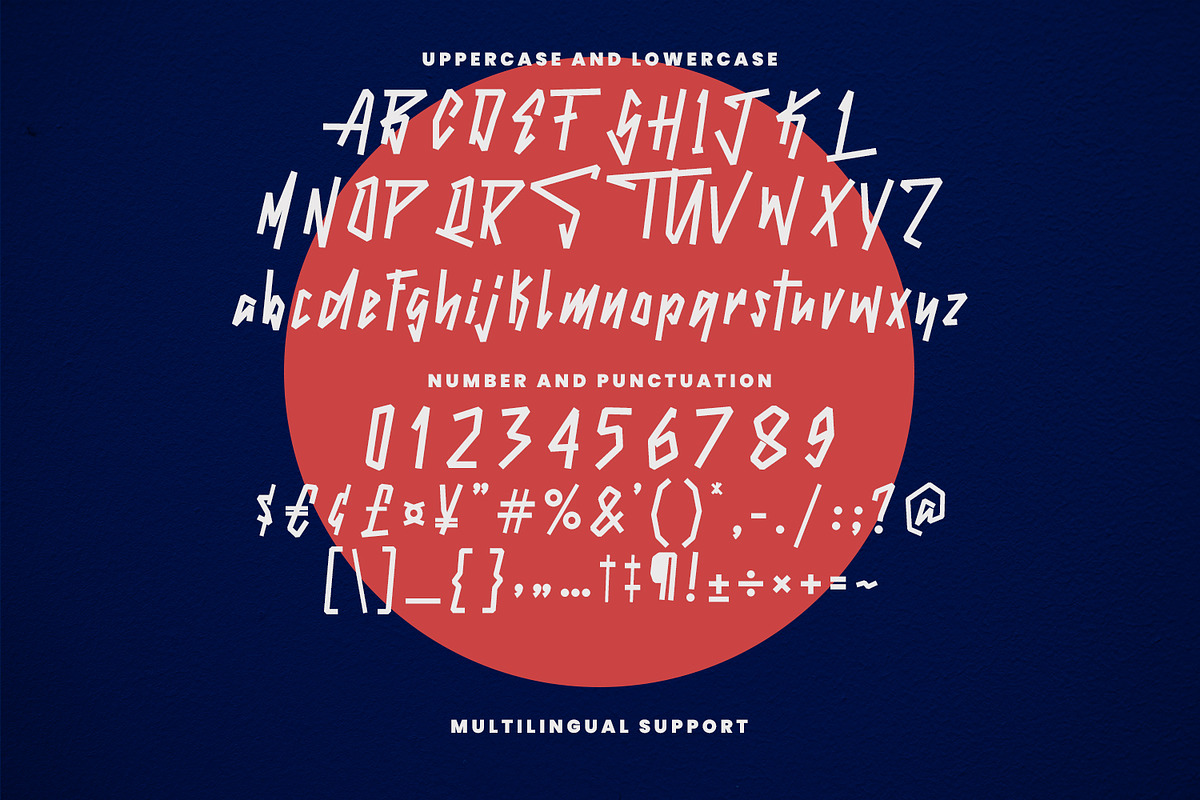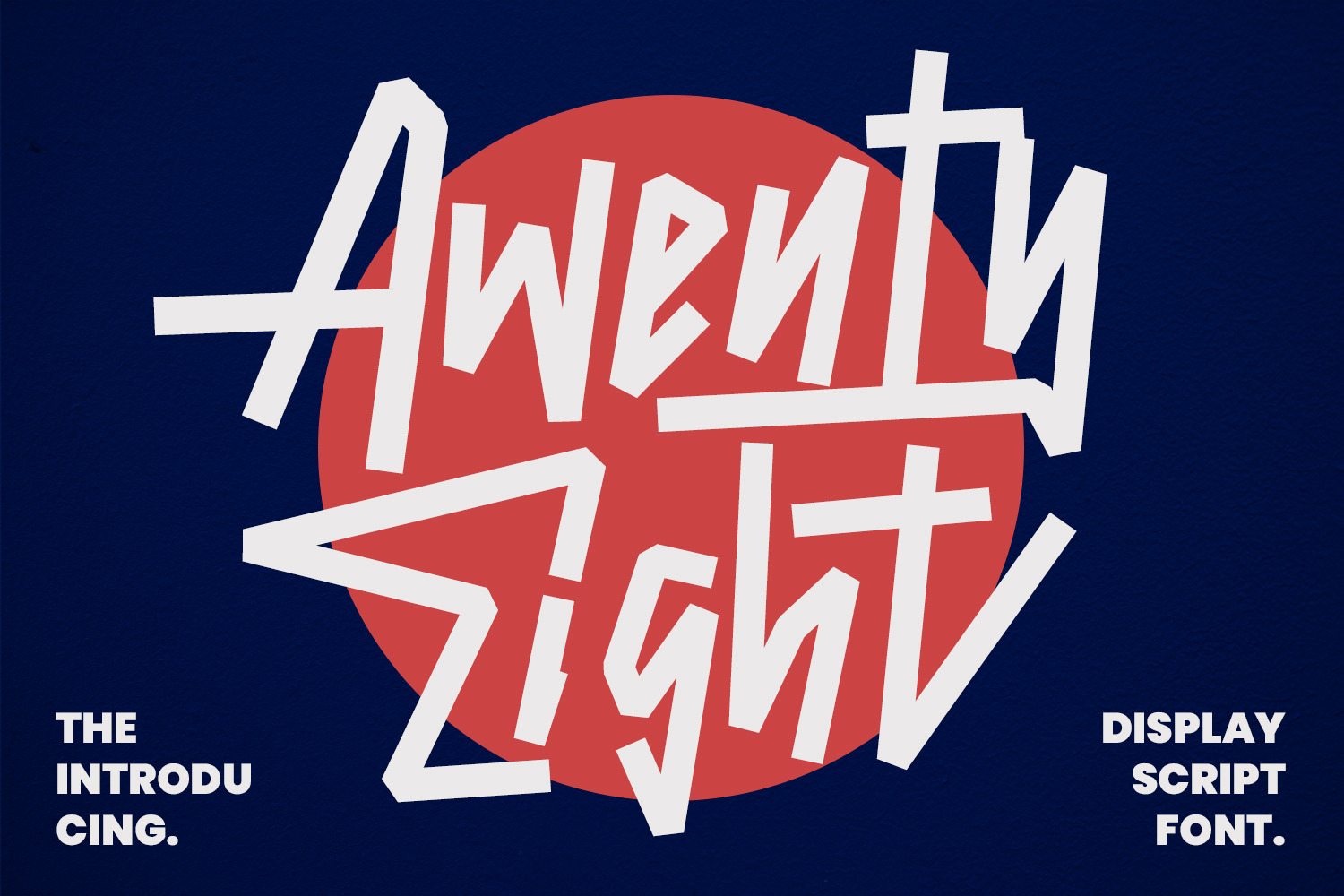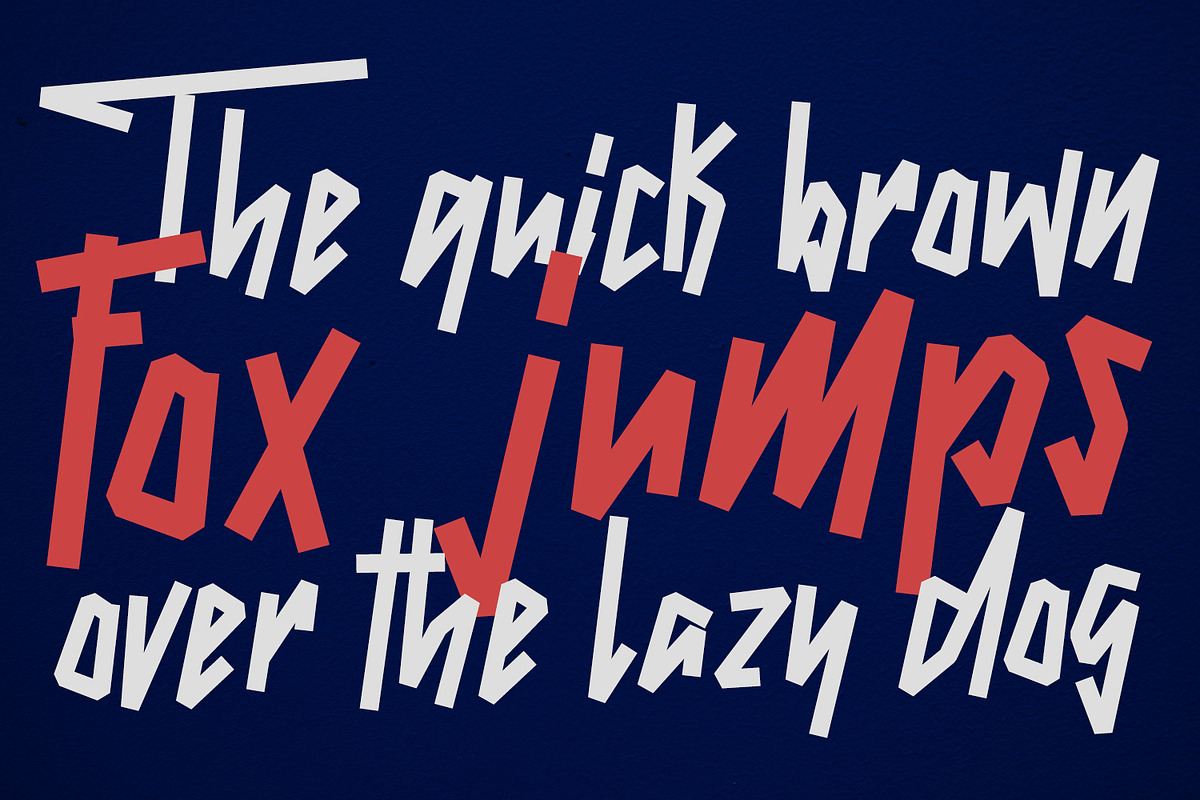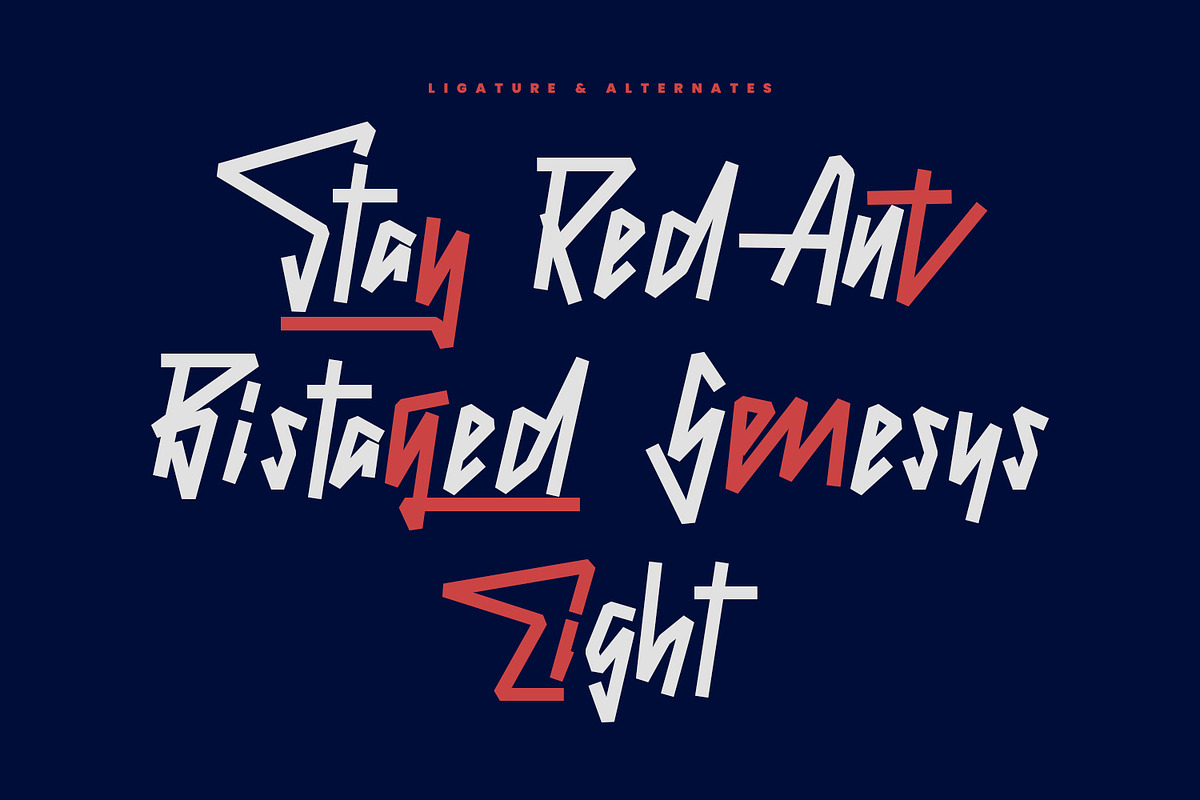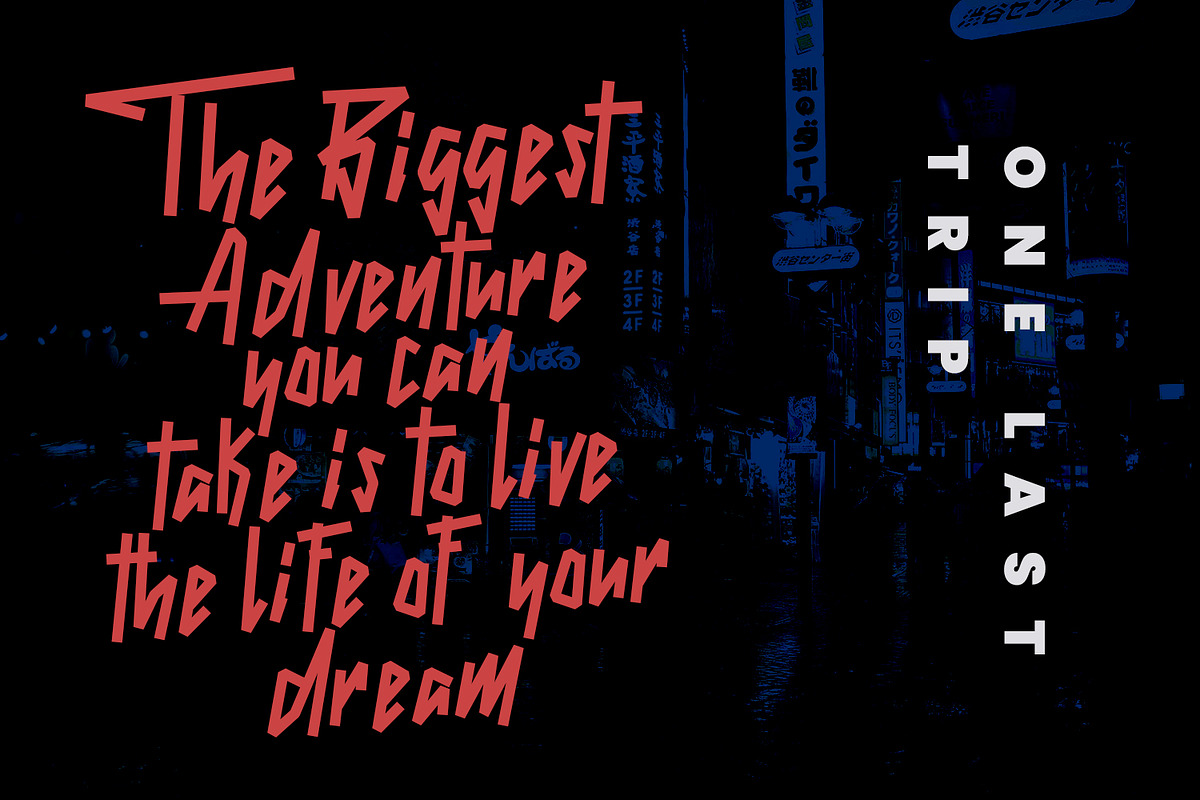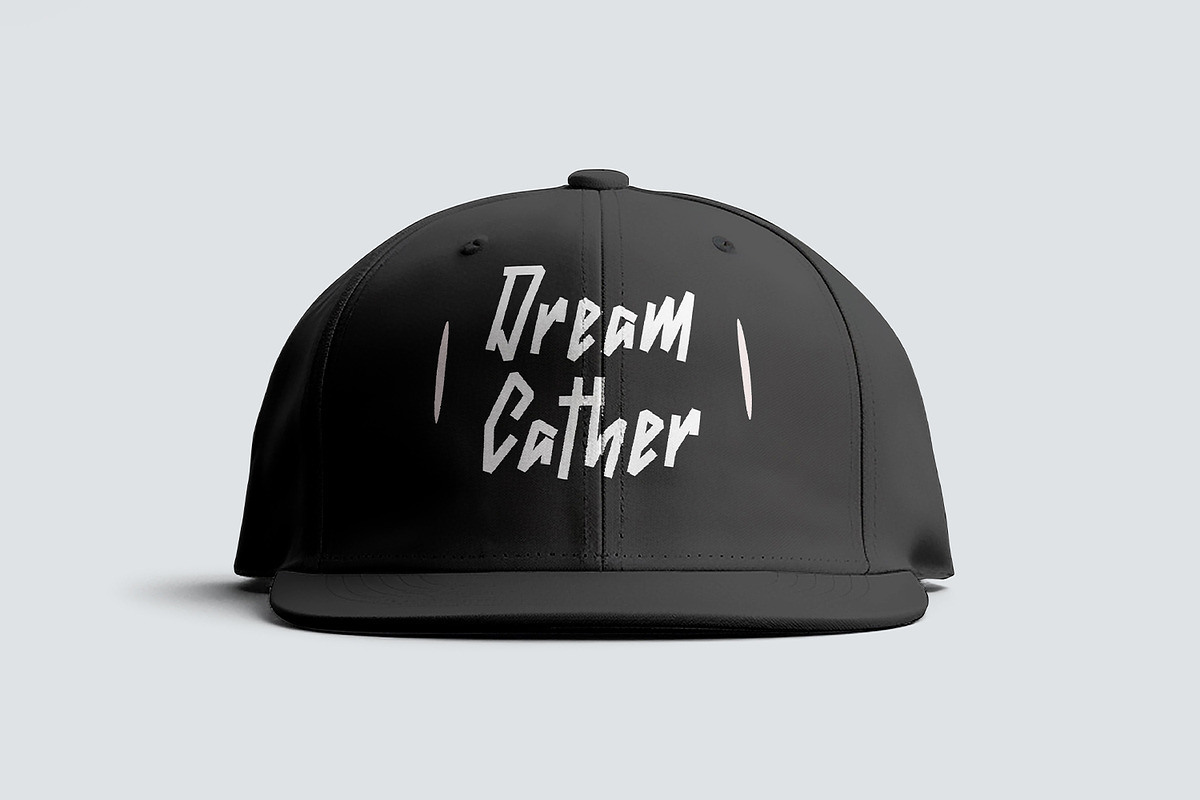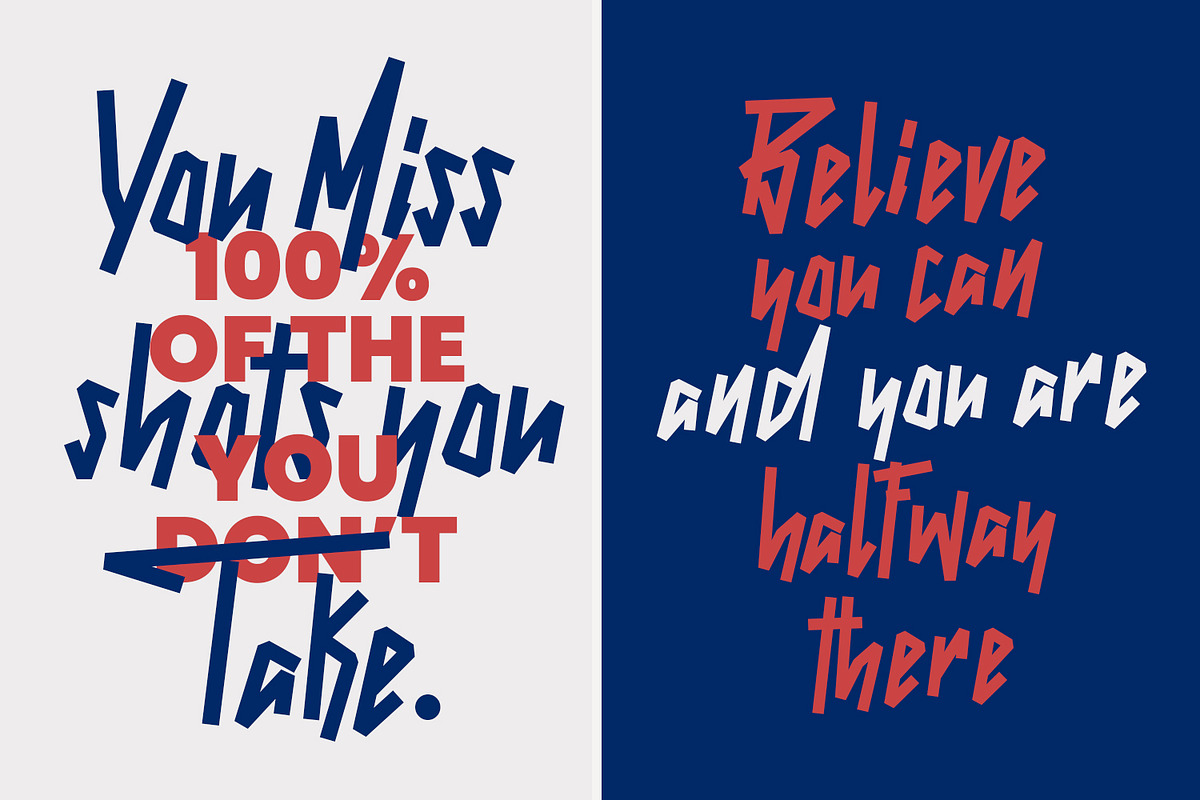
Awenty Eight Display Script Font
Give your designs an authentic brush handcrafted feel. “Awenty Eight Display Script Font” is perfectly suited to signature, stationery, logo, typography quotes, website header, branding and more.